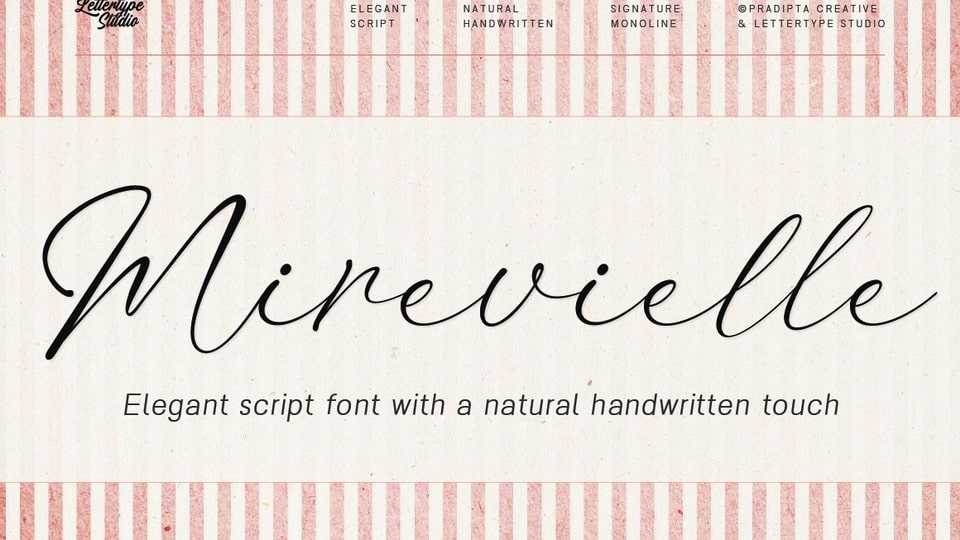
Download Mirevielle font, a handcrafted signature script made for elegant branding and high-end design. Every glyph was drawn with a delicate rhythm — smooth, natural, and full of character.